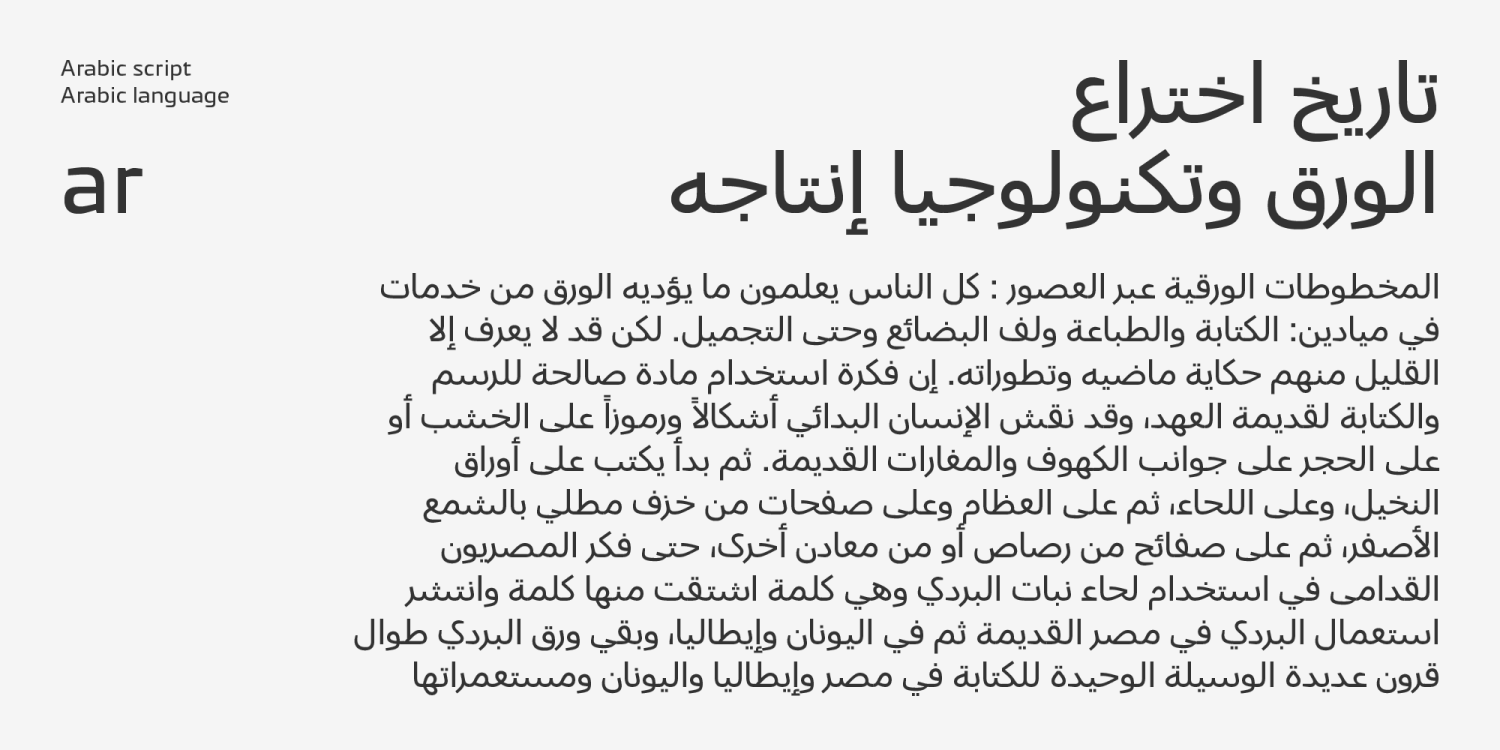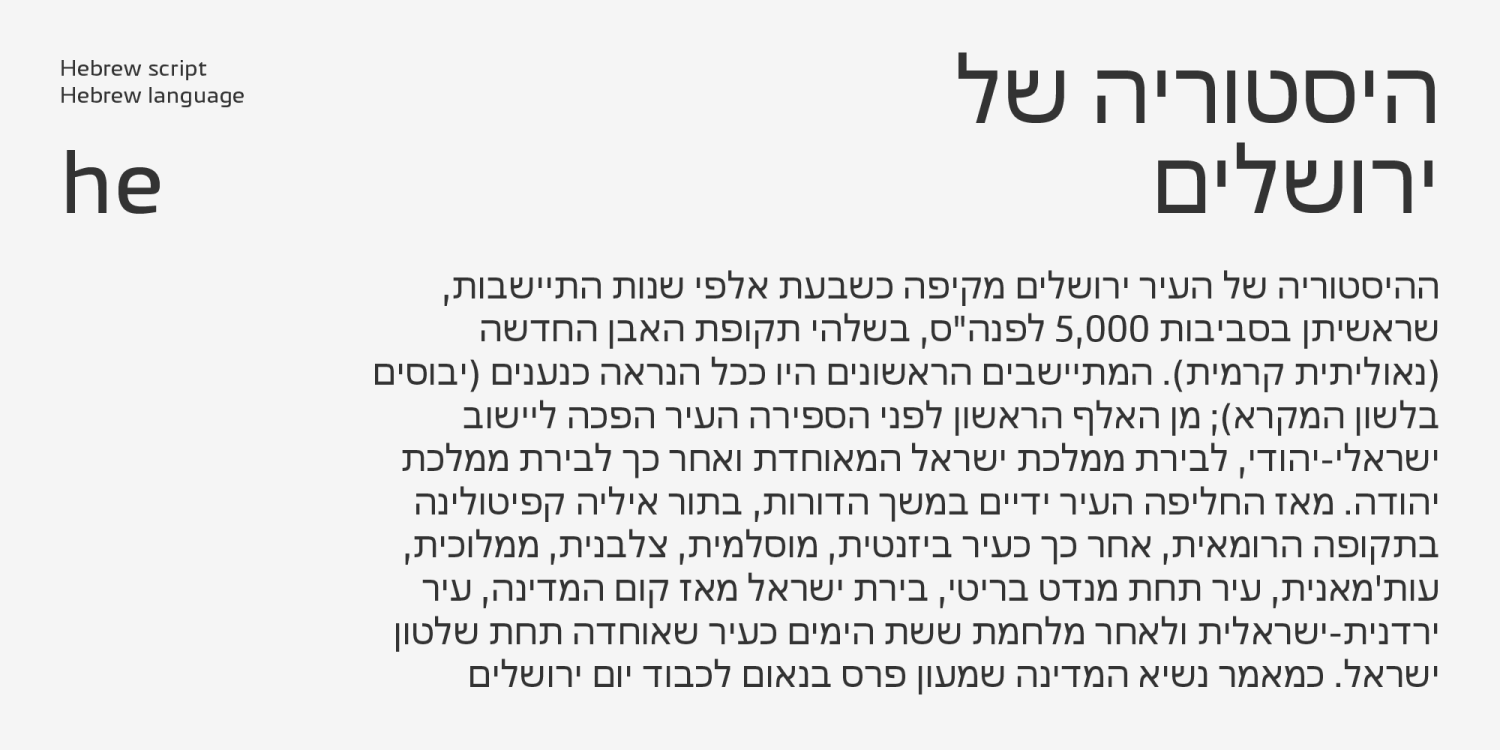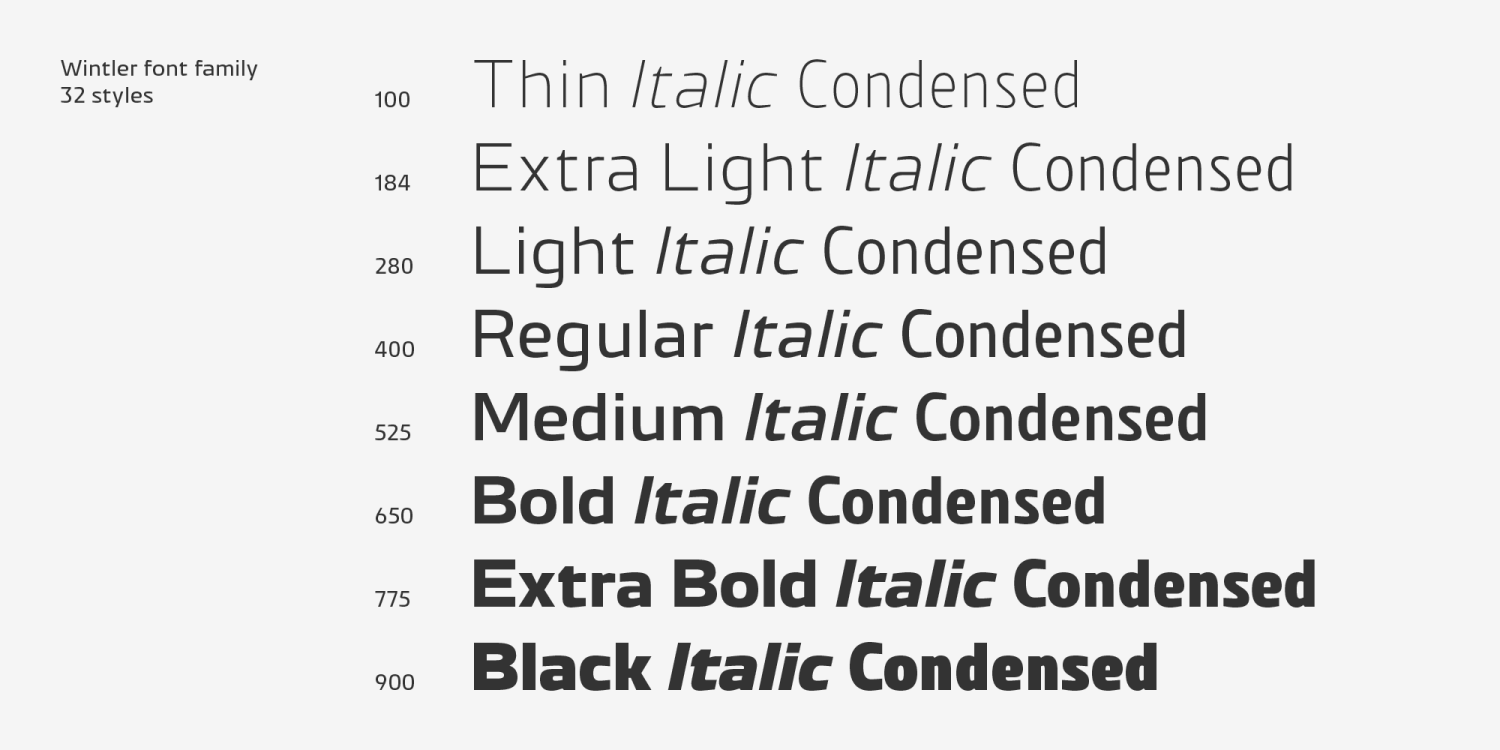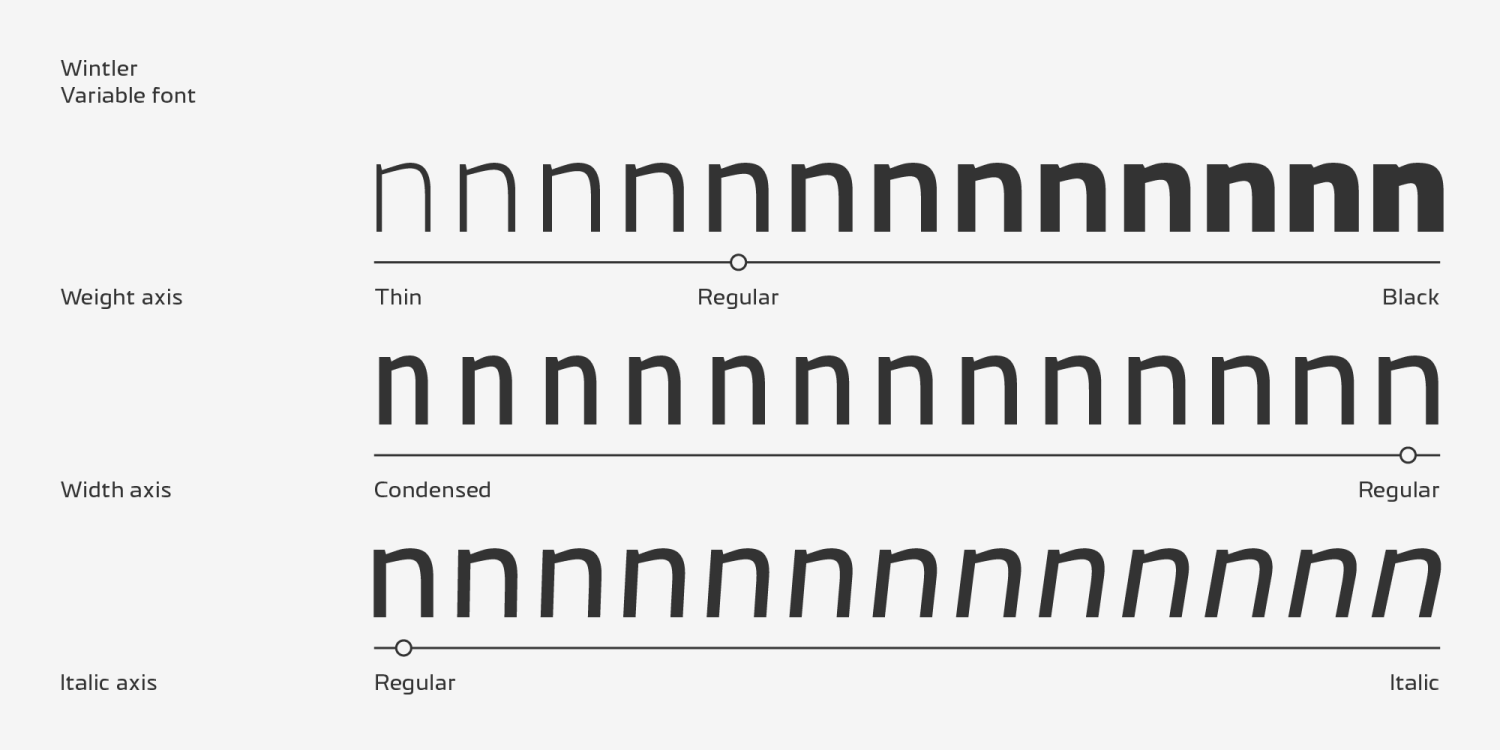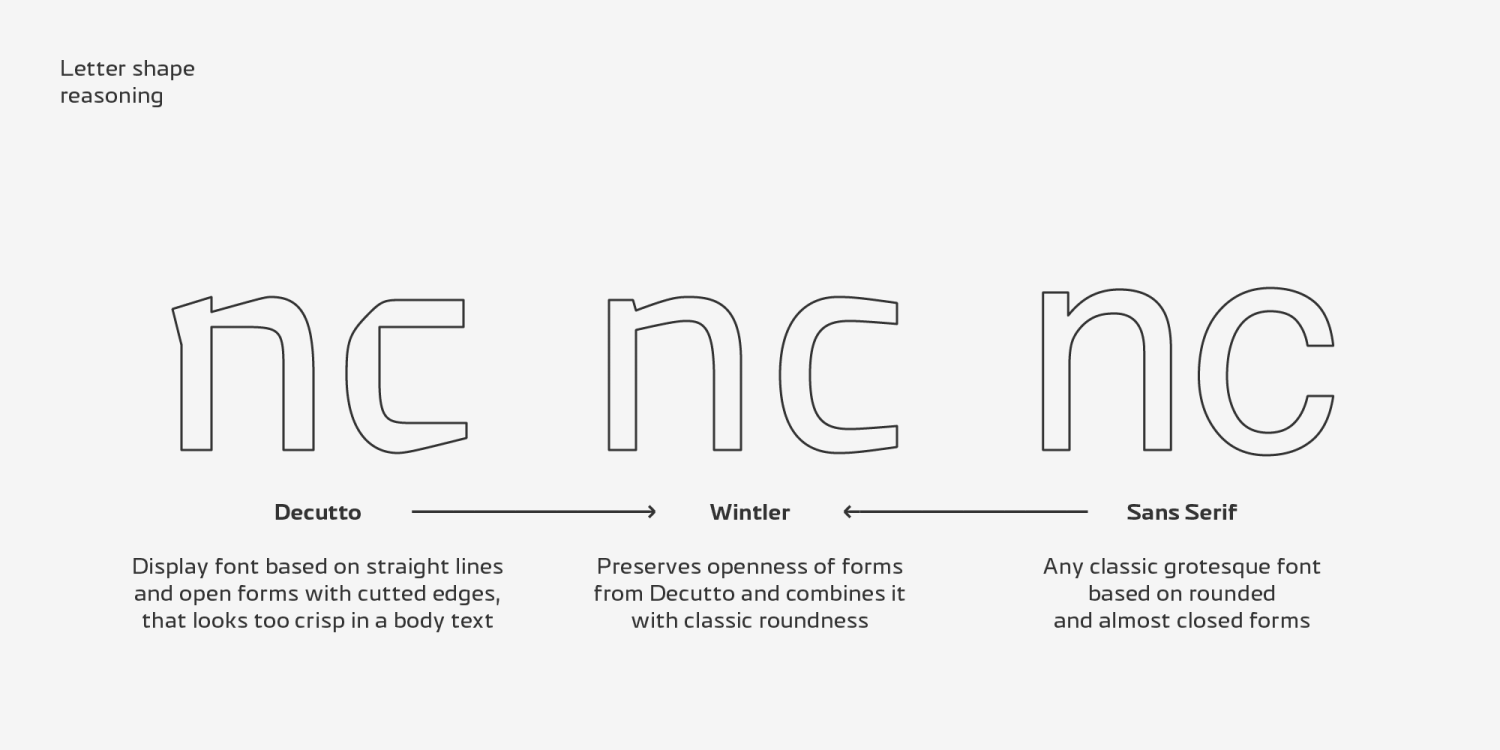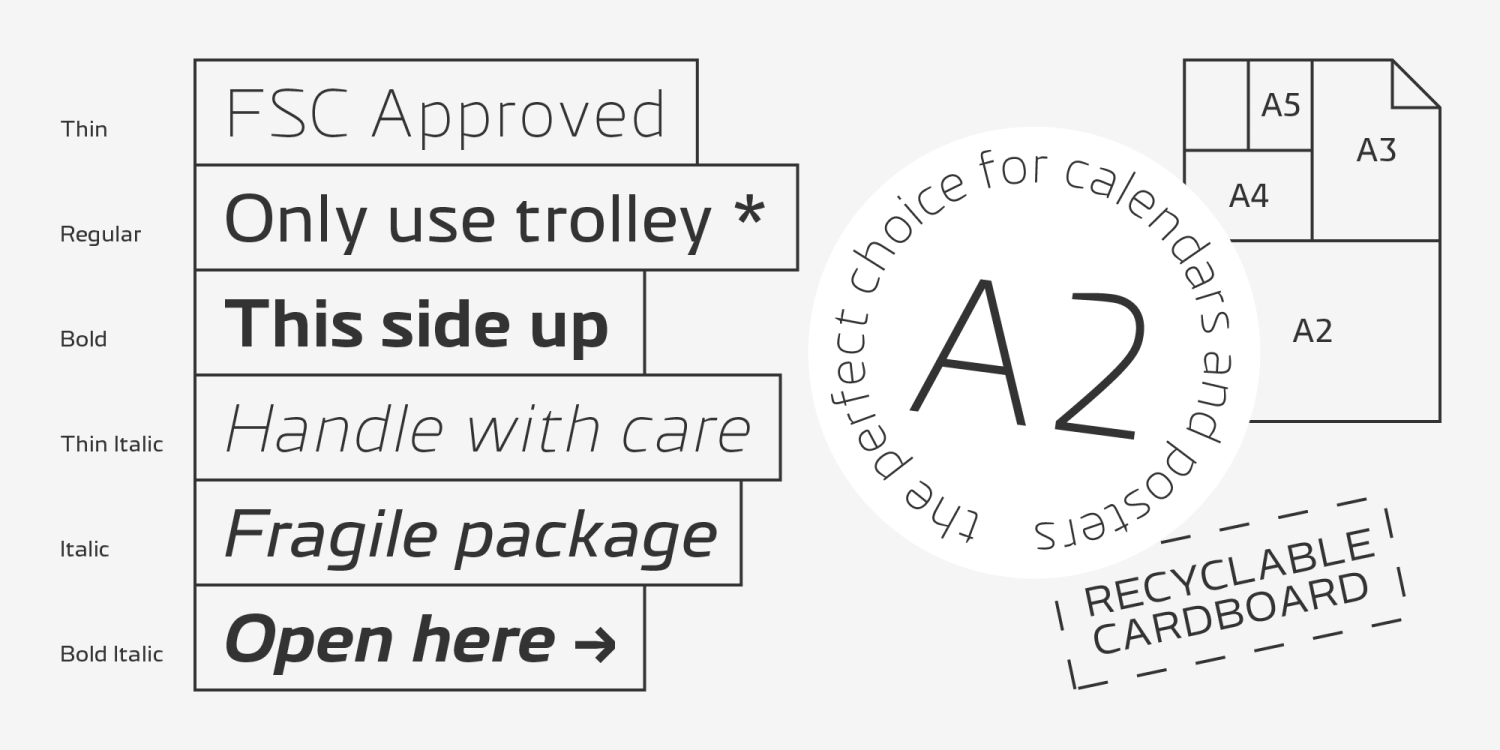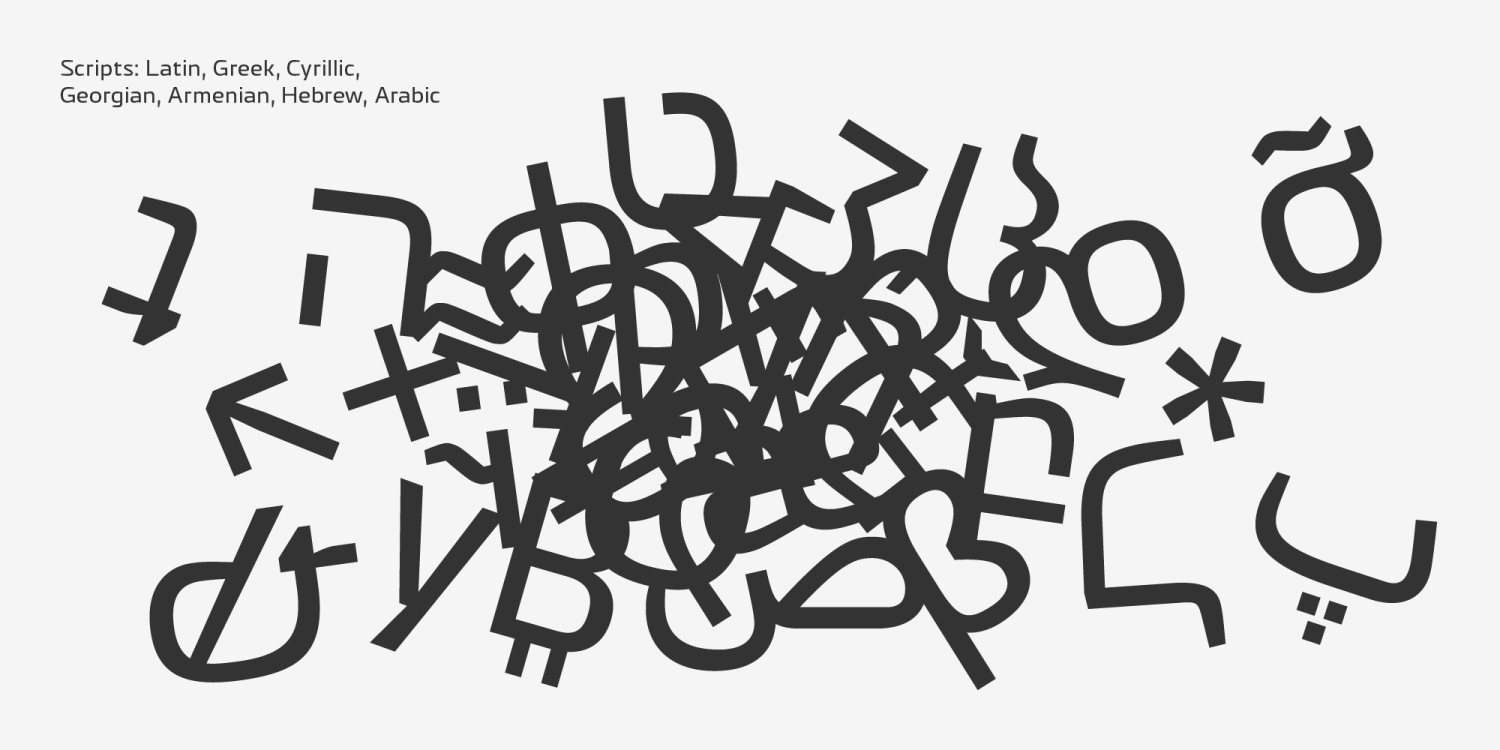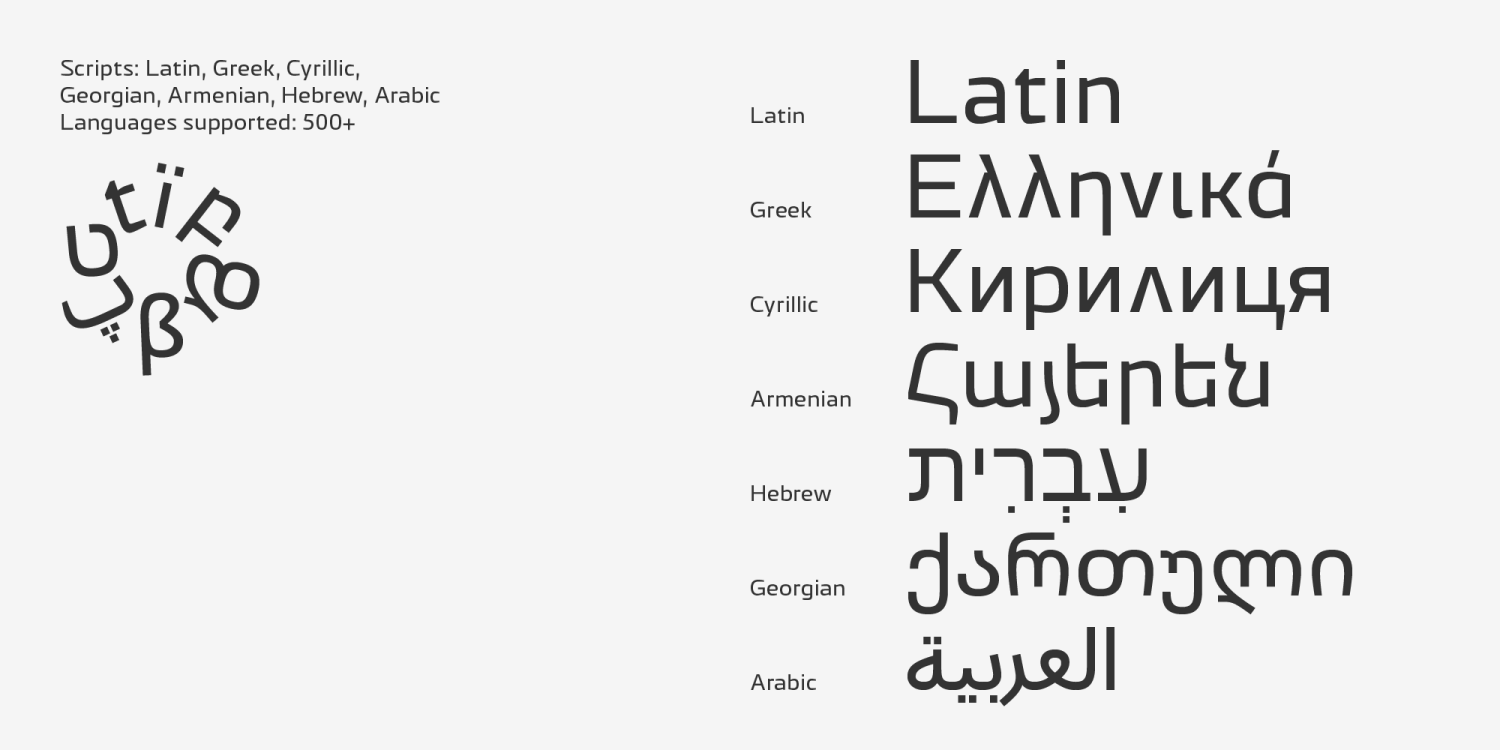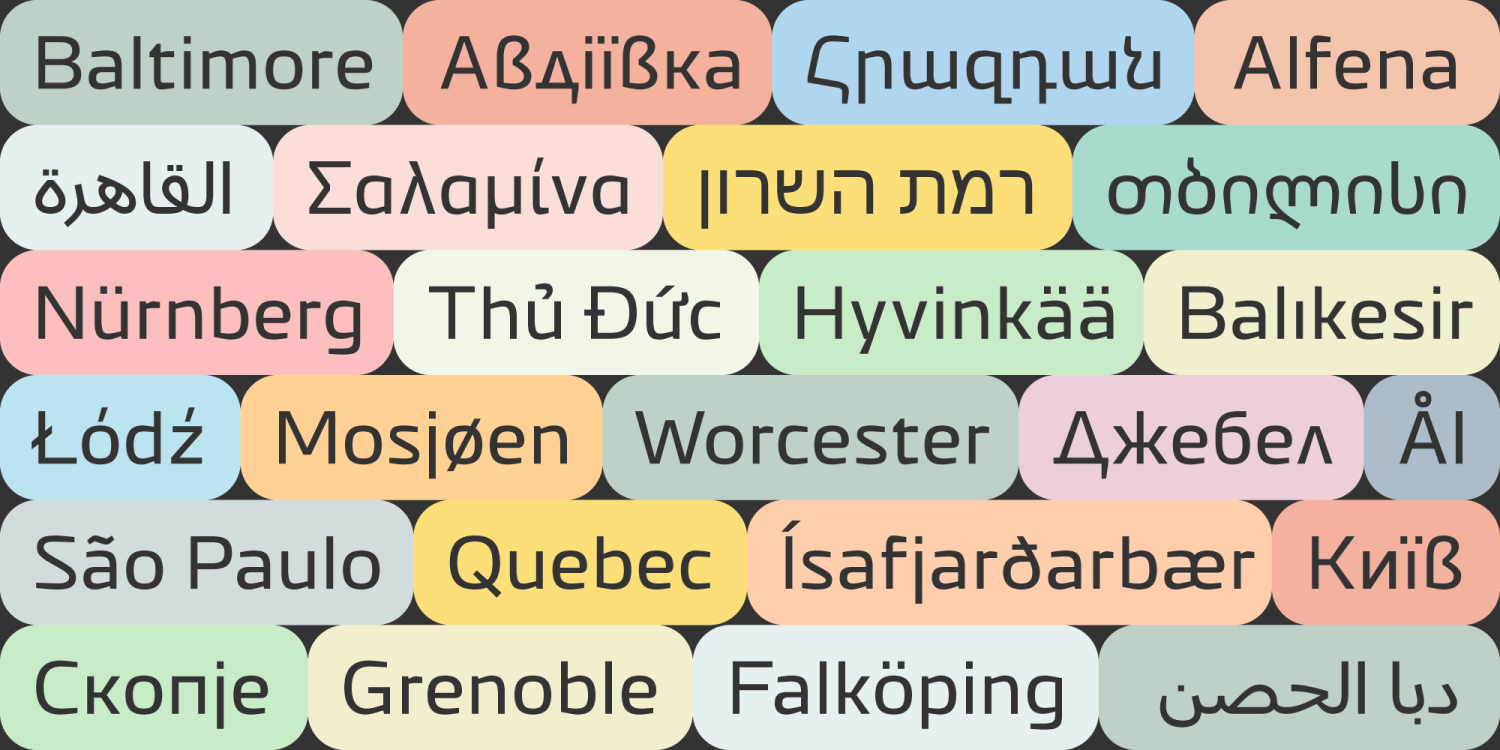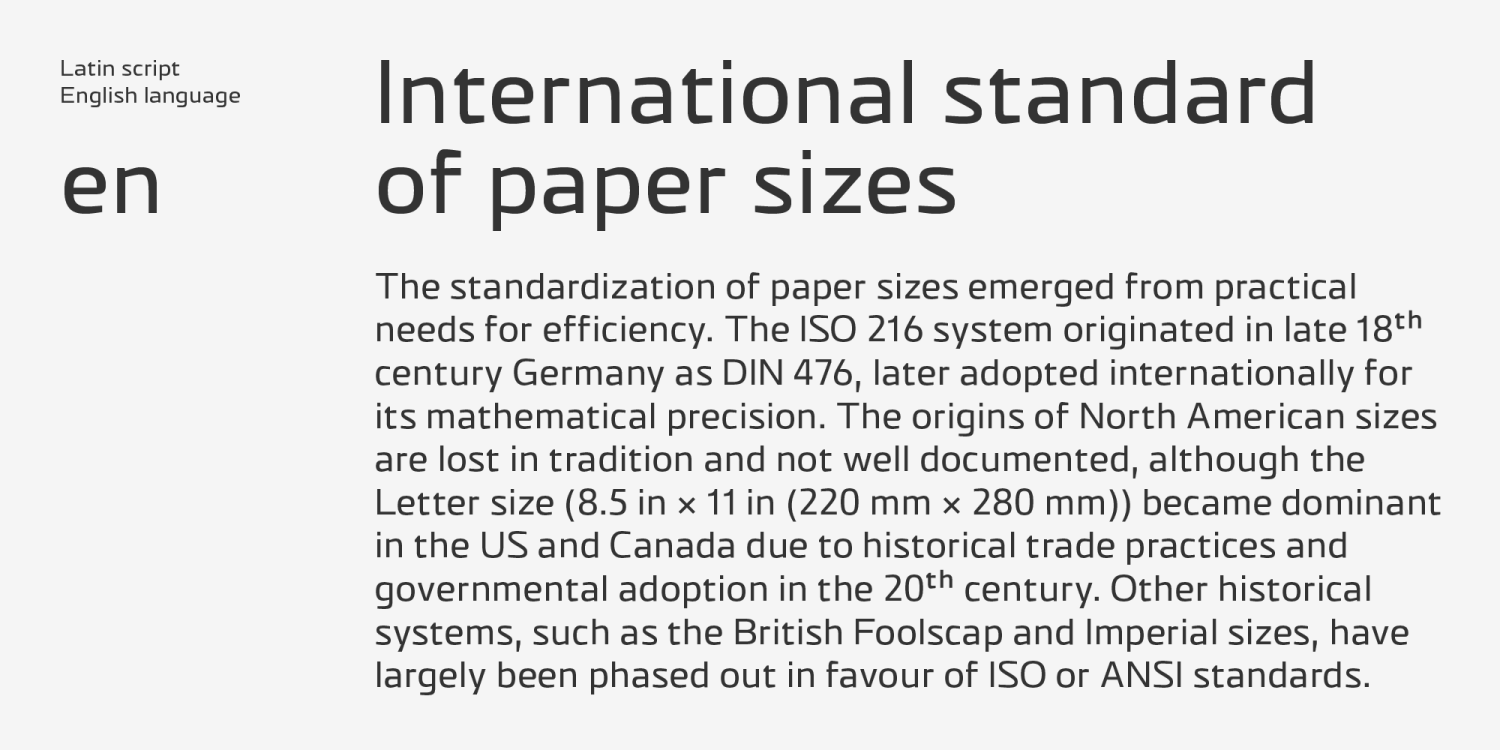
Wintler
Font Family by Michael Rafailyk
Wintler is a workhorse grotesque with a cold straightforward nature and neutral design. Its openness of forms originates from the award-winning Decutto typeface and is adapted for a more universal use.
The goal of Wintler is to preserve the openness of the forms of Decutto typeface and gently translate it into a more universal grotesque. Therefore, its letter shape balances between simplified rectangularity and classic roundness. The font family also received a wide range of styles from Thin to Black, from Normal to Condensed, and from Upright to Italic, as well as a variable font with Width, Weight, and Italic axes. This rework makes Wintler good for both headings and body text.
Scripts supported: Latin, Cyrillic, Greek, Armenian, Georgian, Hebrew, Arabic
Wintler Variable has three axes: Weight axis ranging from Thin (100) to Black (900), Width axis ranging from Condensed (75) to Normal (100), and Italic axis ranging from Upright (0) to Italic (1).